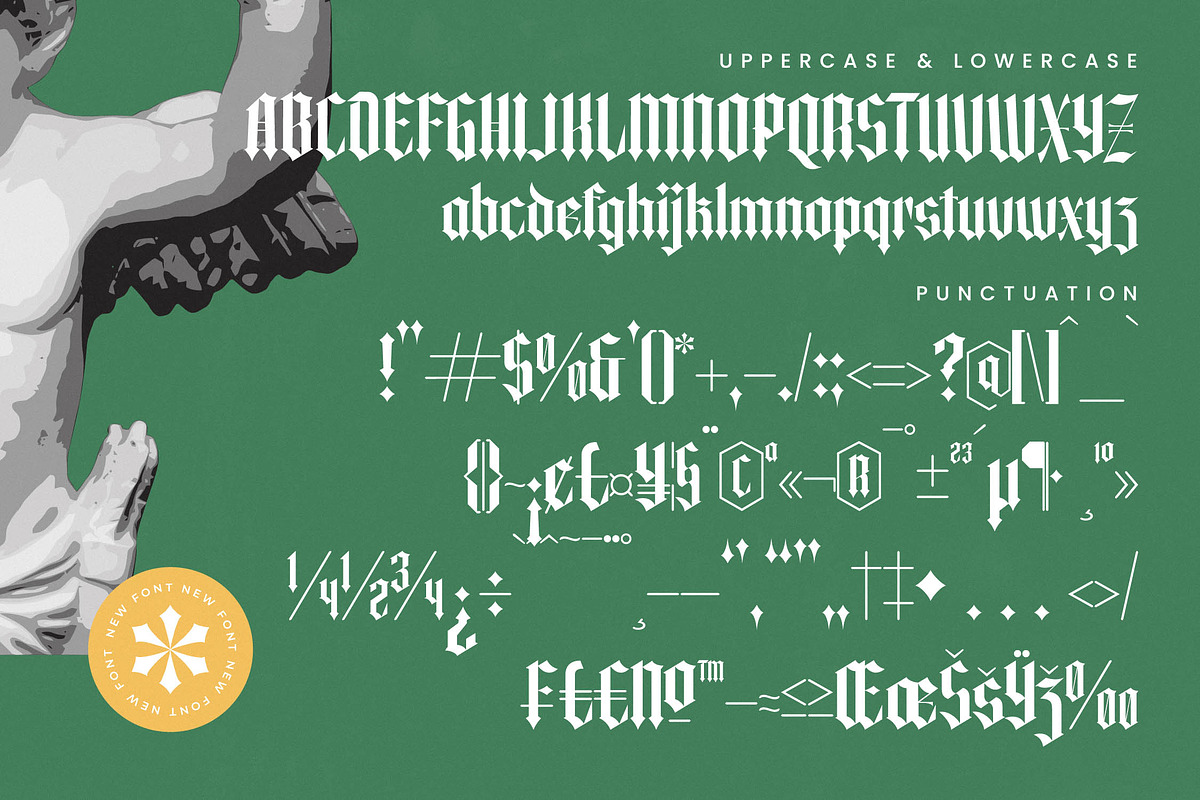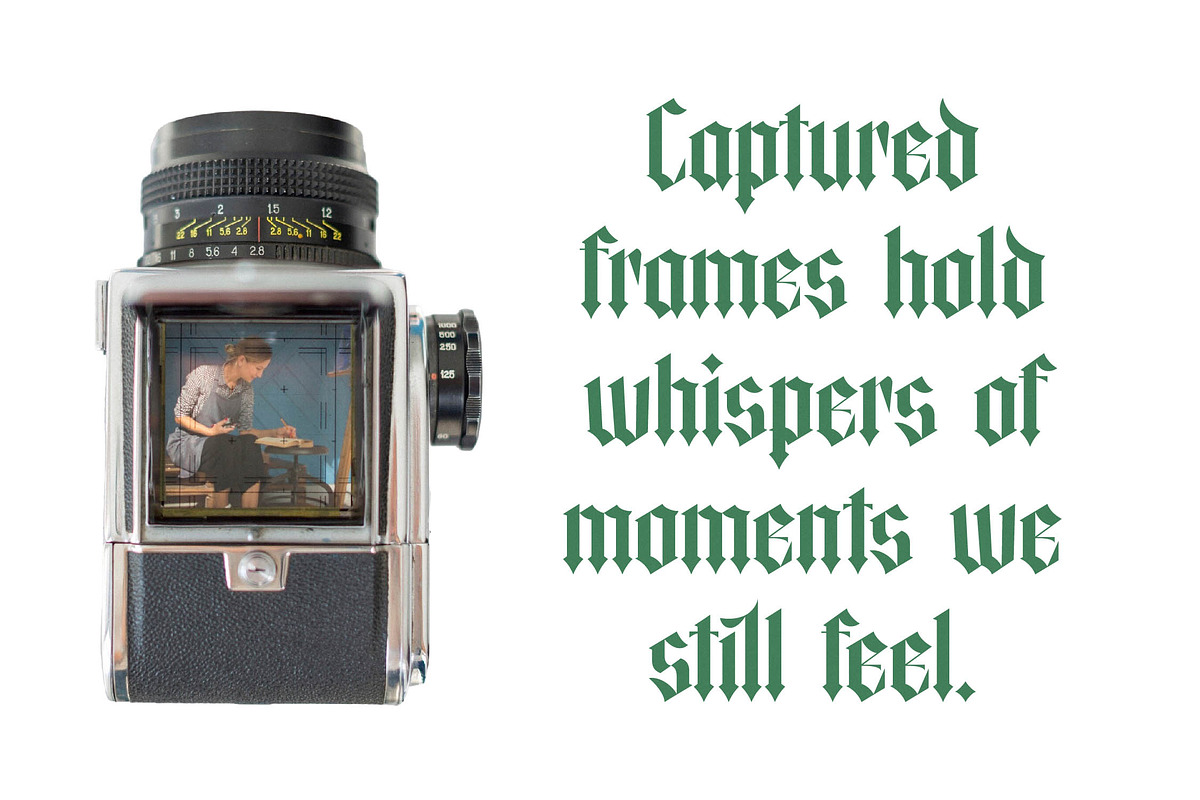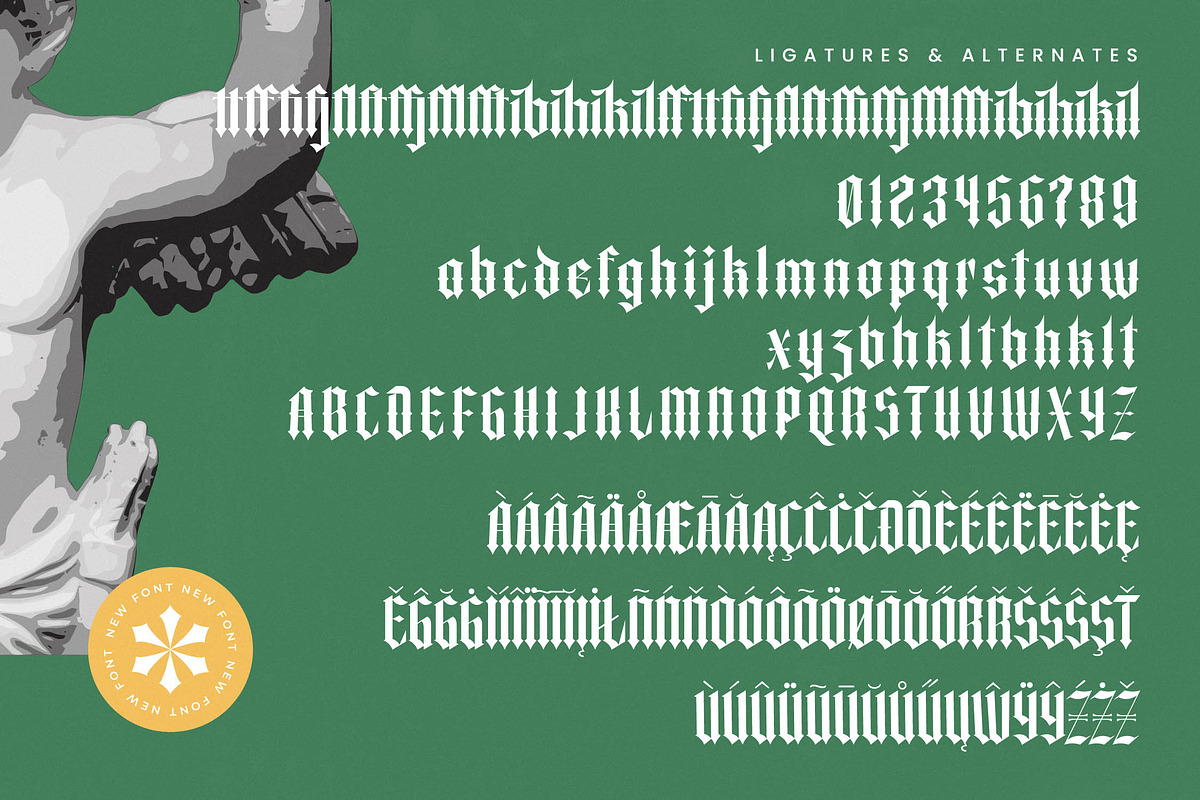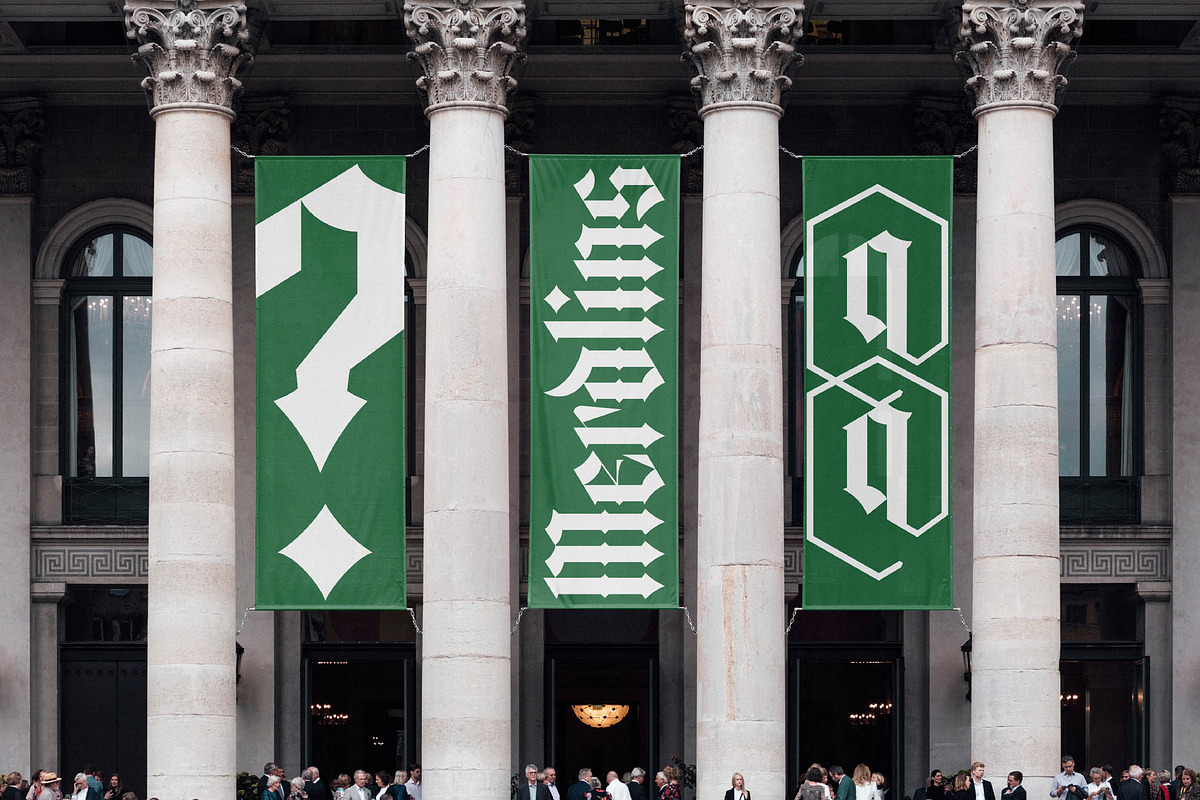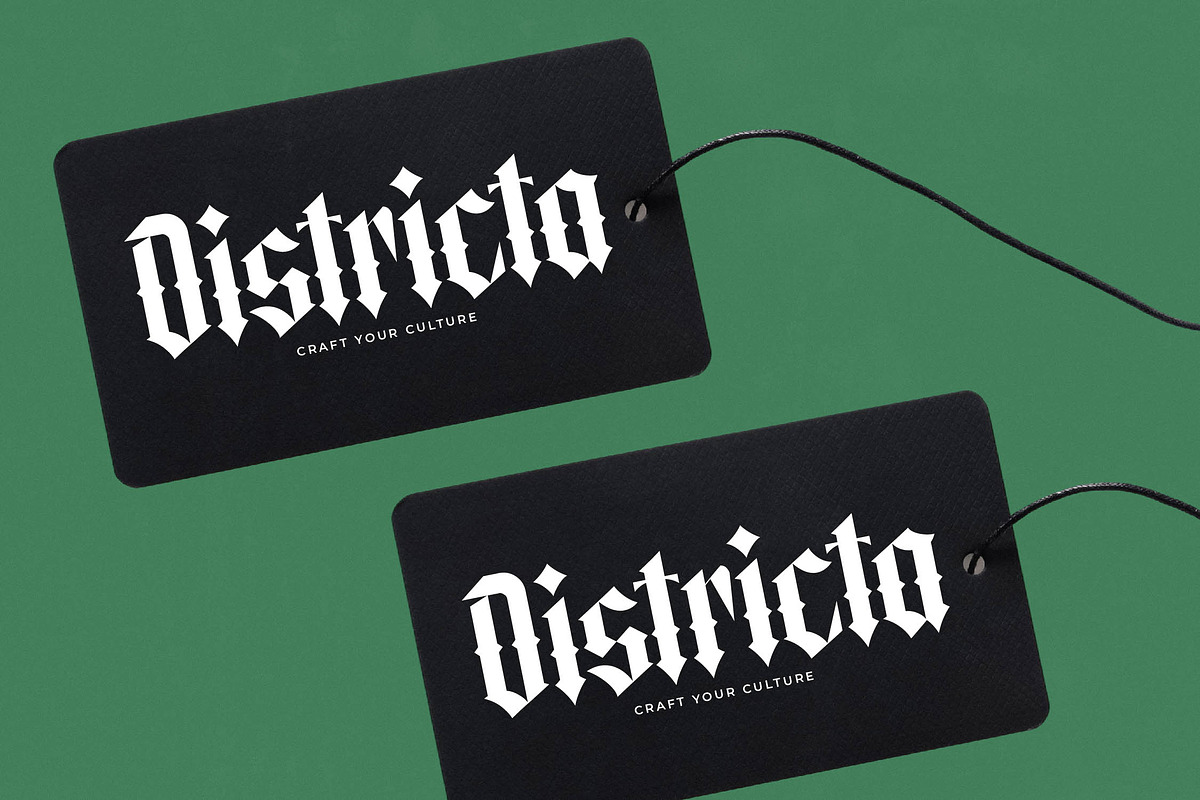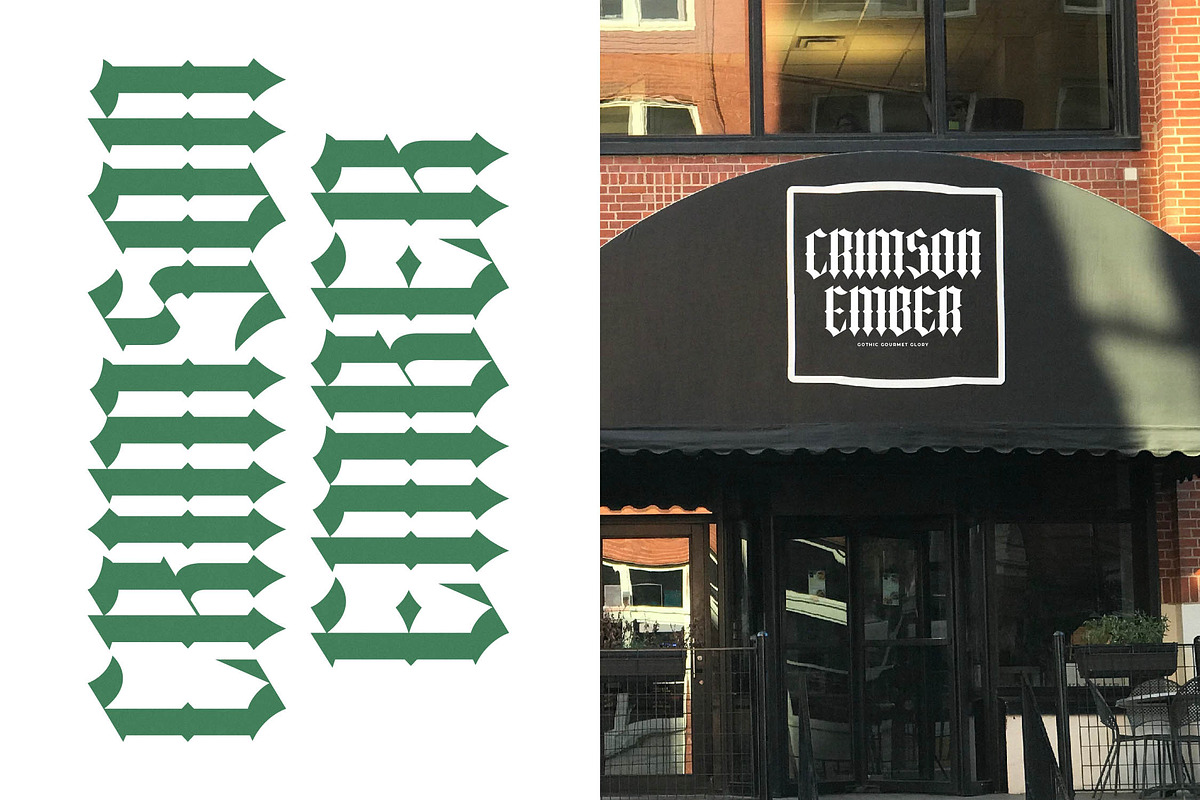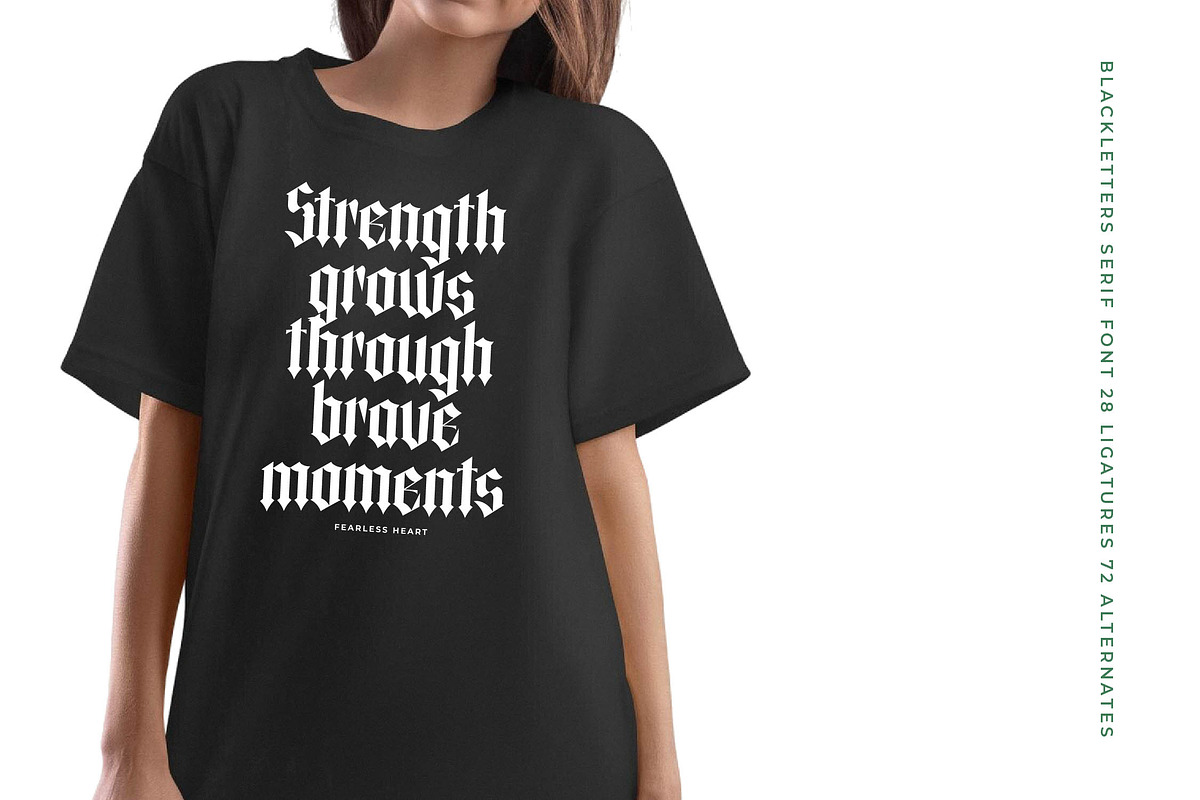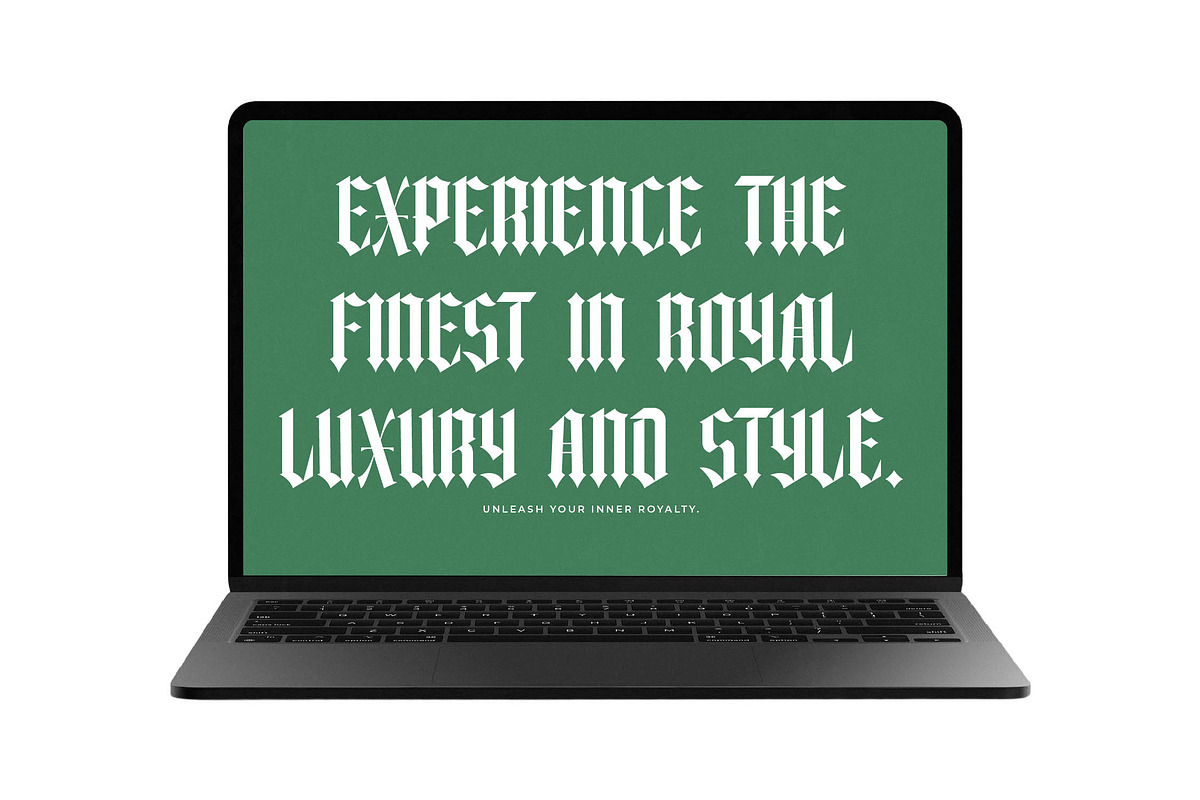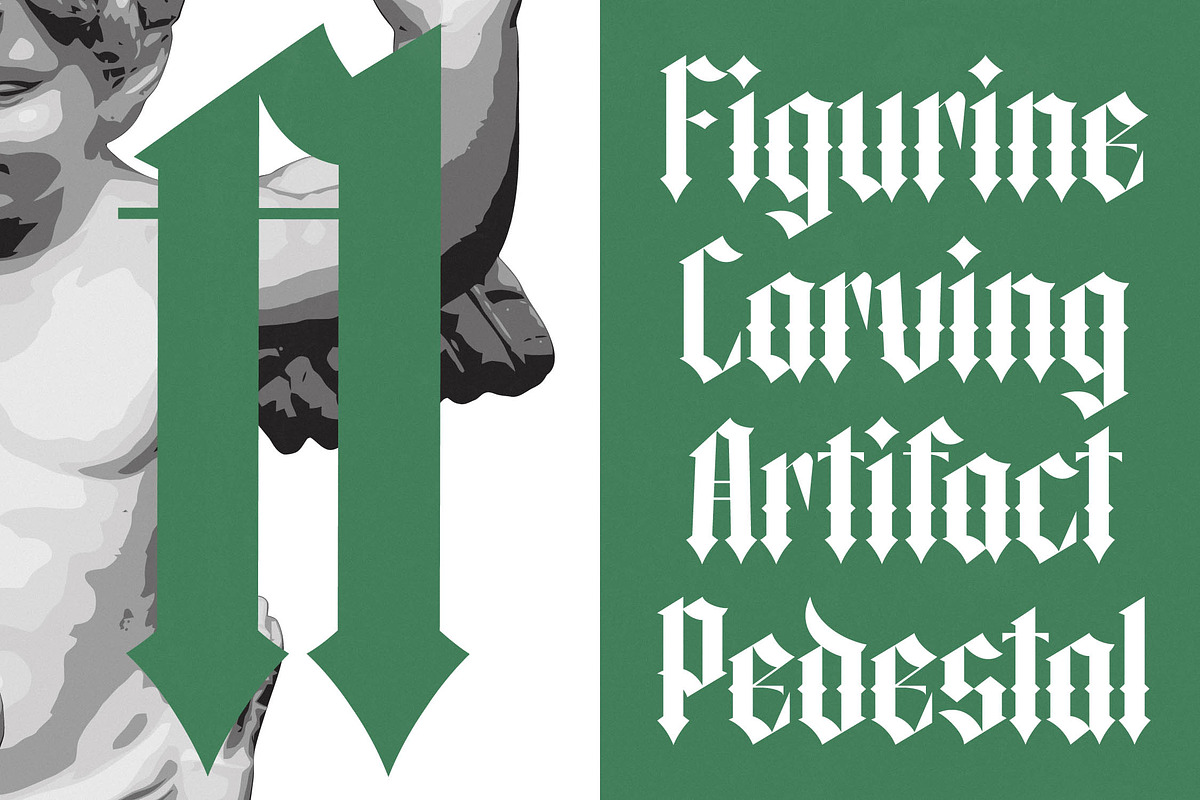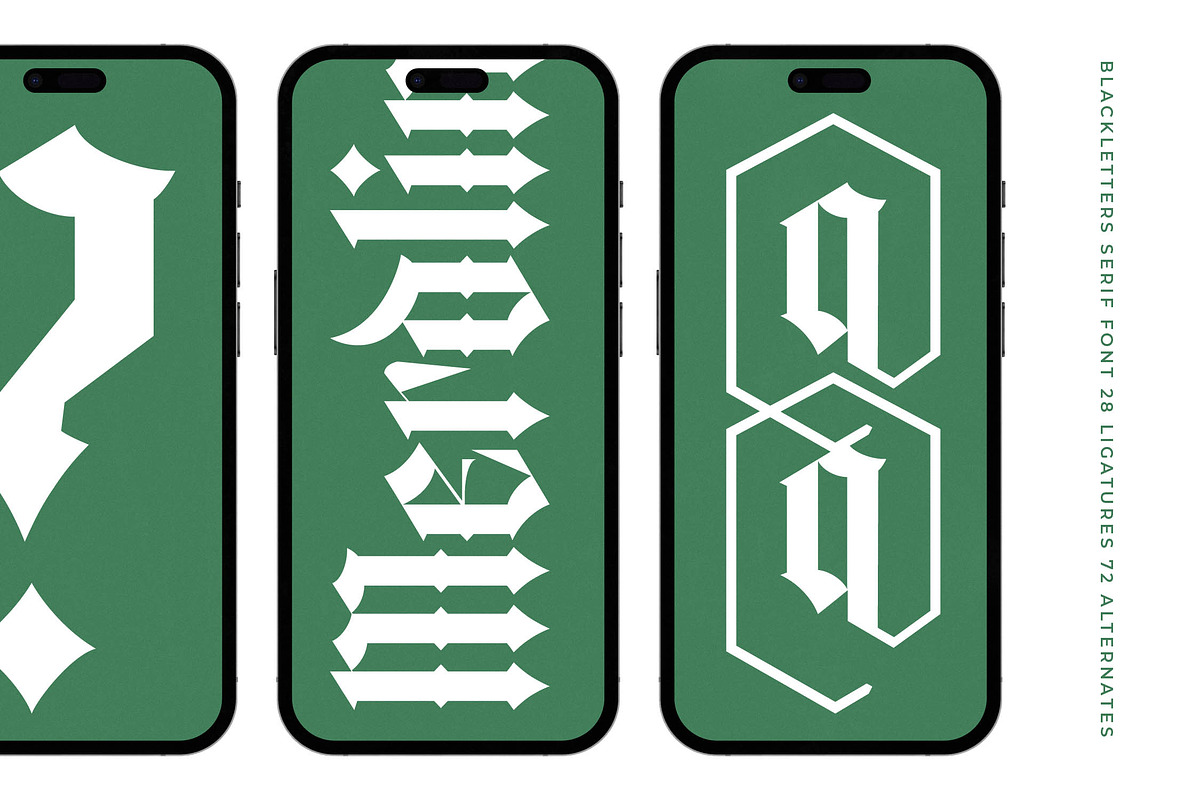
Merdlins Modern Blackletter Serif
Merdlins is a breathtaking fusion of historical drama and contemporary refinement, designed to command attention in any creative layout. This font bridges the gap between ancient manuscript styles and high-end editorial aesthetics with its razor-sharp precision.
Inspired by the intricate strokes of traditional Fraktur and the stoic beauty of classical sculpture, this typeface captures a mystical and timeless atmosphere. It evokes the feeling of a modern-day cathedral where sharp edges meet graceful, sweeping curves to tell a story of power and grace.
With its modern serif display qualities and luxury typography appeal, it offers a high-contrast serif experience that is both aggressive and sophisticated. It is an essential editorial font for creators seeking a powerful branding impact that resonates with strength and artistic confidence.
Staying ahead of the modern serif trend, this typeface aligns perfectly with the current demand for editorial display fonts that break away from minimalism. It embraces character-driven typography to provide a unique visual voice in a crowded digital landscape for discerning designers.
This versatile face is ideal for high-impact logo design and cohesive brand identities, working seamlessly across branding, editorial layouts, and luxury packaging. It adds a touch of dark elegance to wedding invitations and high-concept fashion lookbooks or magazine spreads.
The package is fully loaded with a rich selection of ligatures and alternates to customize every word, alongside a comprehensive set of international characters. With full multilingual support and decorative swashes, it ensures your message is accessible and stylish globally.
- Ligature 28 Alternate 72